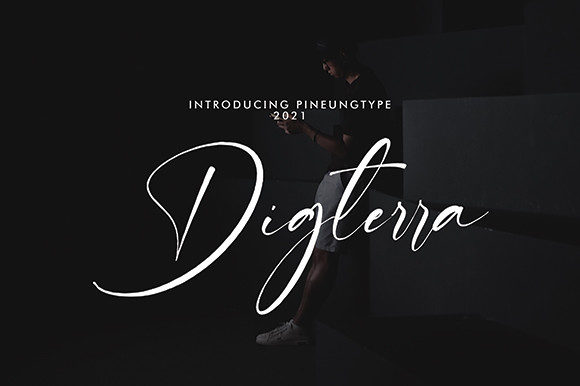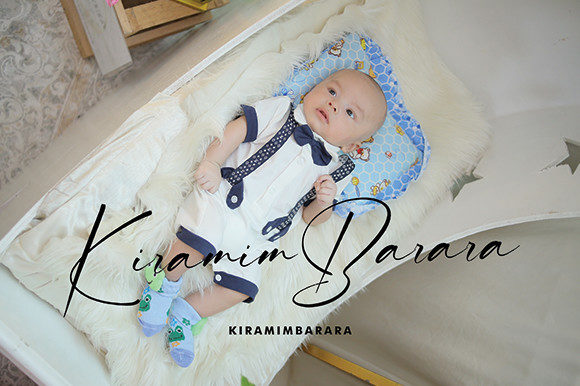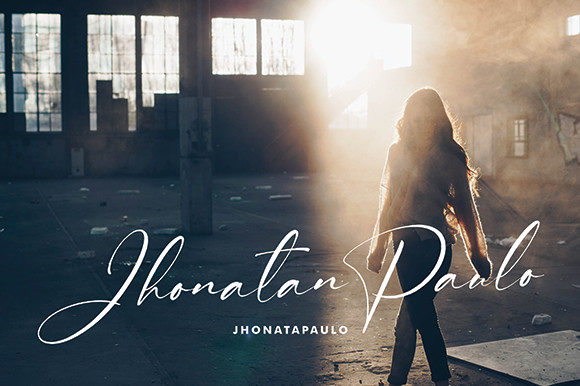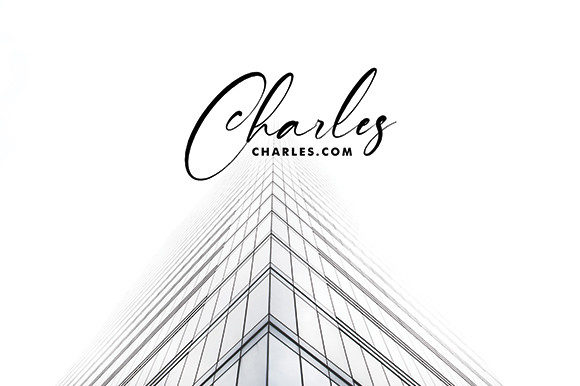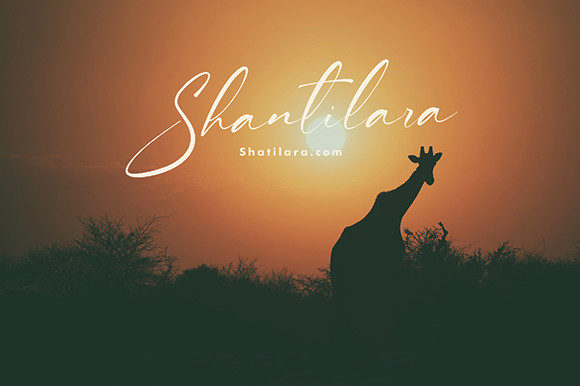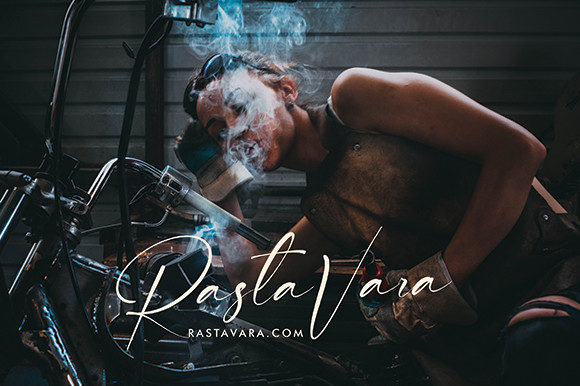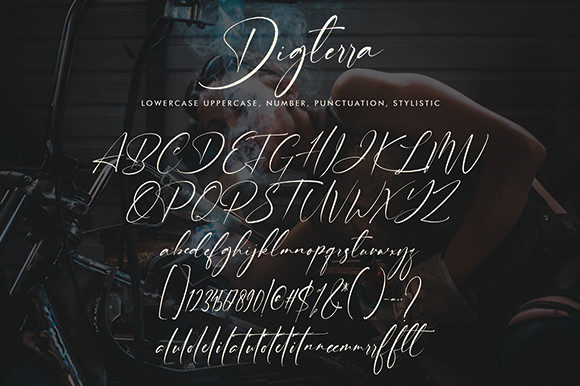
Digterra Font
About Digterra Font
Introducing Digterra, a luxurious script font that exudes elegance and sophistication. Inspired by timeless classic calligraphy, Digterra is designed to elevate the beauty of your projects with its balanced and varied letterforms.
With its medium weight and carefully crafted curves, Digterra strikes the perfect balance between elegance and readability. The strokes are not too thin or too thick, making it visually appealing and easy to read in various design applications.
The refined and graceful nature of Digterra makes it suitable for a wide range of projects. Whether you’re creating wedding invitations, elegant branding materials, high-end packaging, or sophisticated editorial designs, Digterra will add a touch of luxury and sophistication to your creations.
The versatility of Digterra allows it to adapt to different design styles and concepts. Its classic calligraphic influences make it a perfect choice for projects that require a timeless and elegant aesthetic. It can be paired with other fonts or used as a standalone typeface to create a sense of refinement and exclusivity.
Digterra is meticulously designed with attention to detail, ensuring that each letterform is visually pleasing and harmonious. The subtle curves and swooping swashes add a sense of movement and grace, giving your designs a dynamic and captivating appearance.
Whether you’re designing for print or digital platforms, Digterra is a versatile font that can be used in various design applications. Its legibility and elegant style make it suitable for headlines, titles, logos, branding elements, and more. It will effortlessly elevate the visual impact of your projects and leave a lasting impression on your audience.
In addition, Digterra is compatible with OpenType features, allowing you to access a wide range of alternate characters, ligatures, and swashes. This gives you the freedom to customize and personalize your designs, adding a unique touch to your typographic compositions.
With Digterra, you have the power to create designs that exude sophistication and timeless beauty. Let its luxurious and balanced letterforms enhance the visual appeal of your projects, making them truly stand out from the crowd.
So, embrace the elegance of Digterra and let it bring a touch of luxury to your next design project. Whether it’s a wedding invitation, a high-end branding campaign, or a refined editorial layout, Digterra will add a sense of sophistication and timeless beauty to your designs.
Elevate your projects with Digterra and experience the allure of classic calligraphy combined with modern elegance. Let it be the centerpiece of your typographic compositions and create designs that leave a lasting impression.